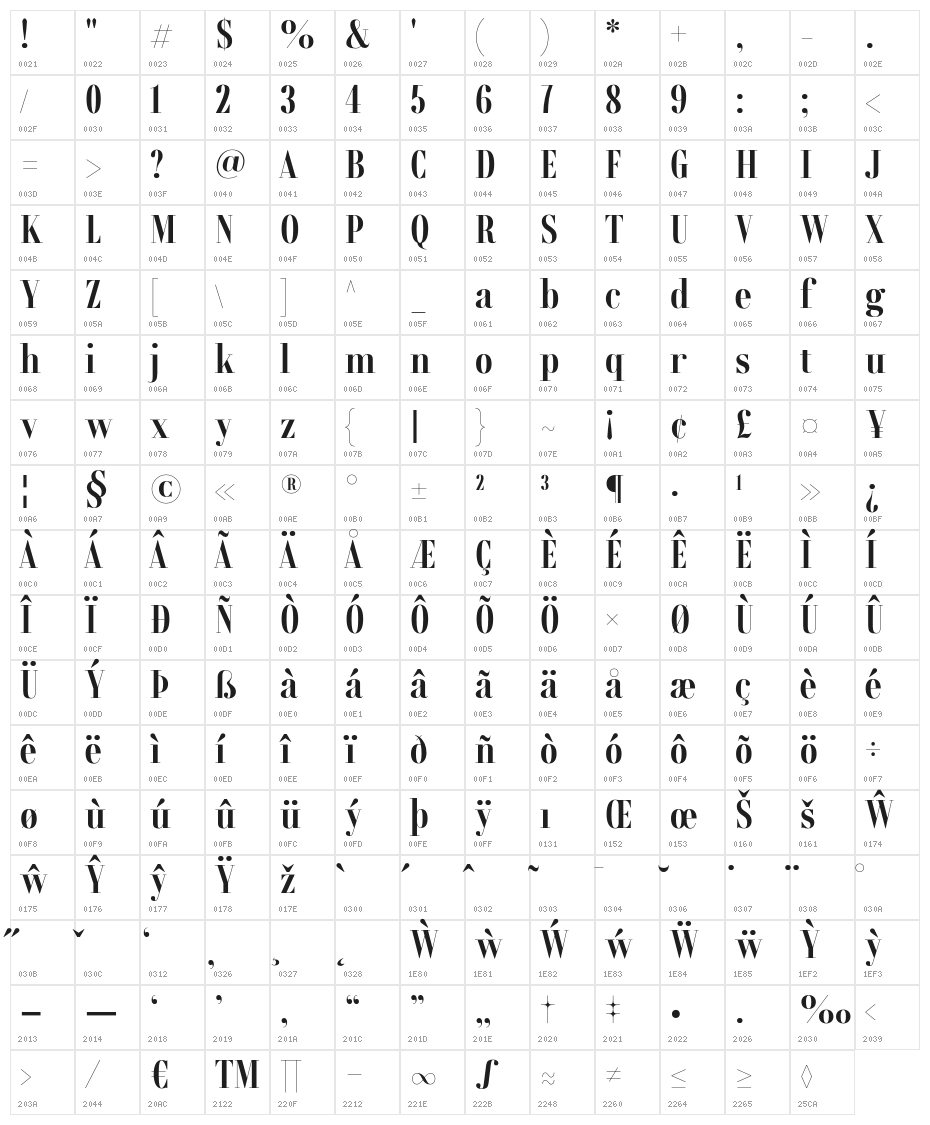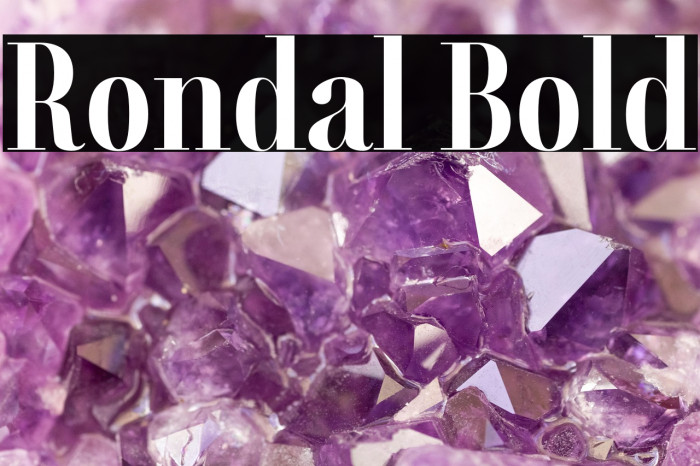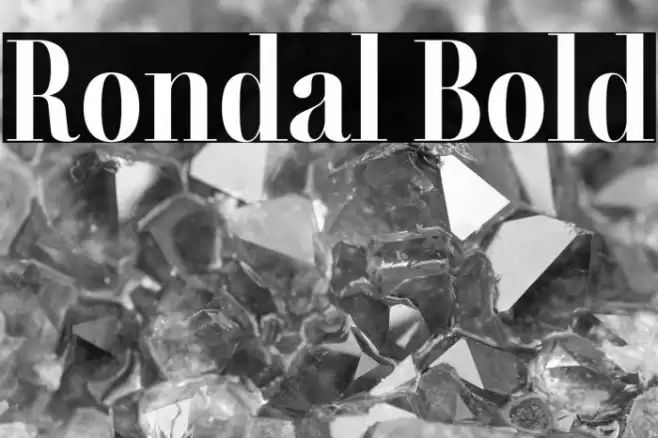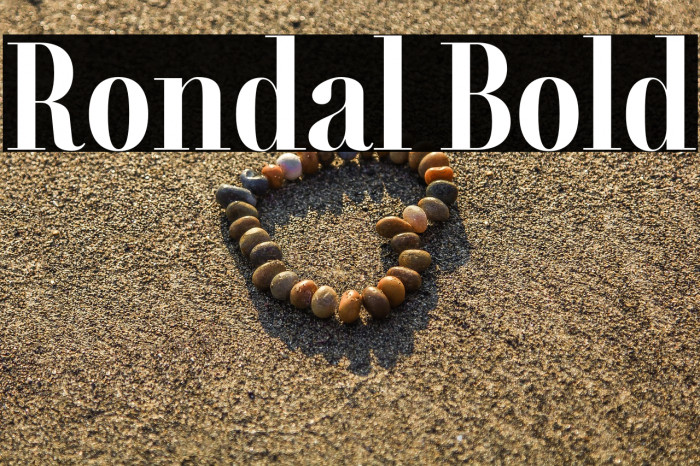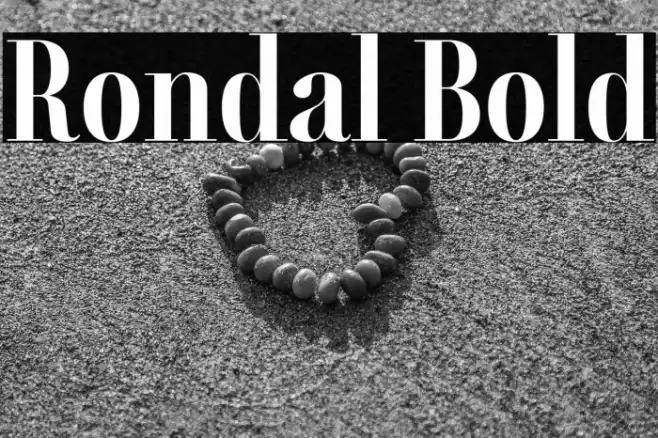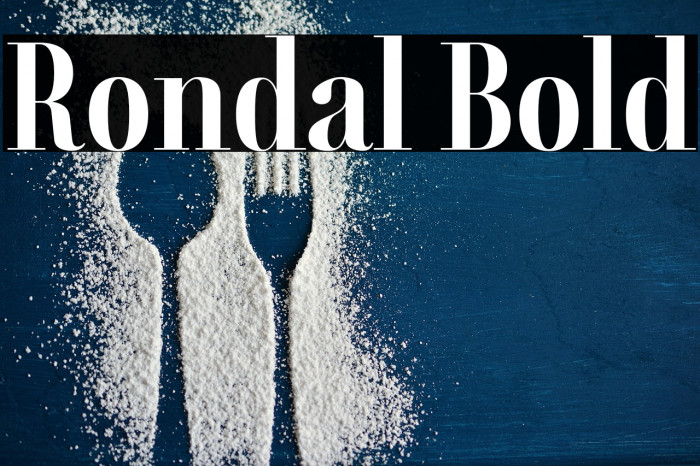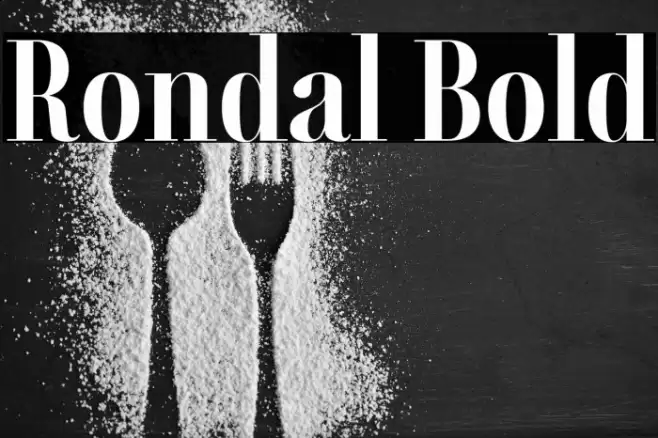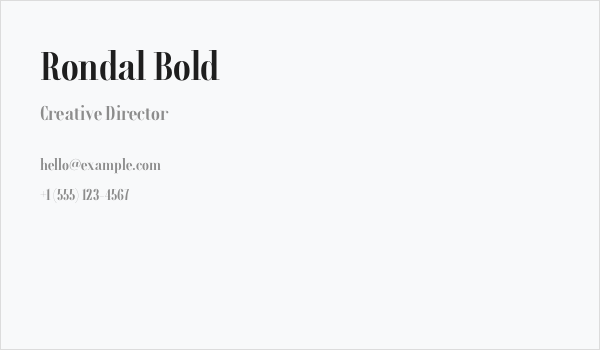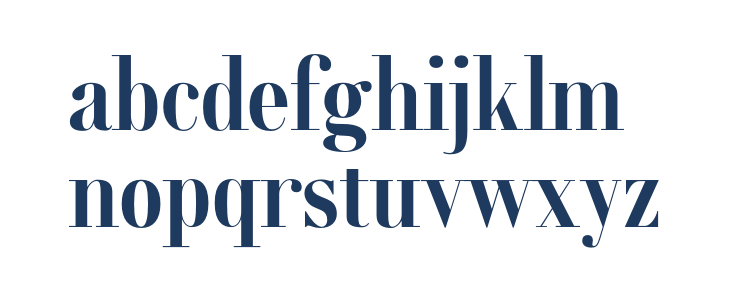
Rondal Bold Font
Rondal Bold Description
This font features a bold and elegant serif design, characterized by its high contrast between thick and thin strokes. The uppercase letters are tall and commanding, while the lowercase letters maintain a classic and sophisticated appearance. The numerals are well-proportioned, ensuring readability and aesthetic appeal. Special characters are included, adding versatility for various design needs. The overall style exudes a sense of modernity while retaining traditional serif elements, making it suitable for both contemporary and classic projects.
| Proposed Projects | Ideal for use in editorial design, luxury branding, book covers, and high-end product packaging. |